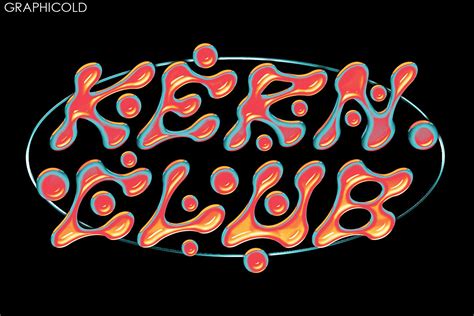
Hey everyone! Today, we’re diving deep into the fascinating world of alien fonts . You know, those super cool, otherworldly, and often downright bizarre typefaces that make you feel like you’ve just landed on a different planet? If you’re looking to add a touch of the extraterrestrial to your designs, you’ve come to the right place. We’ll be exploring what makes a font feel ‘alien’, where you can find some awesome examples, and how you can use them to make your projects truly stand out. Get ready to blast off into a universe of unique typography!
What Makes a Font Feel “Alien”?
So, what exactly gives a font that out-of-this-world vibe, guys? It’s all about breaking away from the norm, right? Alien fonts typically steer clear of the standard sans-serif and serif structures we see every day. Instead, they often feature unconventional shapes, sharp angles, and sometimes, a distinct lack of symmetry. Think about those classic sci-fi movie posters or the typography used in futuristic video games – they rarely use Times New Roman, do they? They’re more likely to sport fonts with jagged edges that look like they were carved by laser beams, or smooth, flowing lines that mimic the elegance of advanced alien technology. Some alien fonts might even incorporate elements that look like circuits, alien script, or abstract geometric patterns. The key is that they evoke a sense of the unknown, the strange, and the technologically advanced, or perhaps even primitive and bizarre. They challenge our perceptions of what letters should look like and invite us to imagine different possibilities for communication. It’s like looking at hieroglyphics from another galaxy – familiar enough to be recognized as text, but different enough to be mysterious and intriguing. The color palette also plays a role, with metallic sheens, neon glows, and deep space blacks often associated with alien aesthetics. But fundamentally, it’s the form of the characters themselves that screams ‘alien’. Whether it’s the way the ‘A’ has three legs instead of two, or the ‘O’ is more of a hexagon, these subtle (or not so subtle!) deviations from the familiar are what create that immediate extraterrestrial impression. We’re talking fonts that look like they could be alien hieroglyphs, or perhaps the digital readouts from a UFO’s control panel. The goal is to spark curiosity and a sense of wonder, making viewers pause and think, “What is that?” It’s a creative playground for designers to push boundaries and explore new visual languages, moving beyond Earthly conventions to embrace the truly alien.
Where to Find Awesome Alien Fonts
Alright, so you’re hyped to find some of these cosmic fonts, but where do you start looking? Don’t worry, the digital universe is packed with them! One of the best places to start your search is on popular font repositories like Google Fonts , Dafont , Font Squirrel , and Creative Market . While Google Fonts might have a more curated selection, Dafont is a goldmine for freebies, and you’ll definitely find some wild, experimental stuff there if you dig a little. Creative Market, on the other hand, often features premium alien fonts designed by professionals, offering higher quality and unique stylistic elements. When searching, try keywords like ‘sci-fi font’, ‘futuristic font’, ‘space font’, ‘tech font’, or even ‘glitch font’ – these often lead you down the right rabbit hole. You might also find some gems by browsing through categories like ‘Abstract’, ‘Distorted’, or ‘Experimental’ on these sites. Sometimes, the best alien fonts are those that aren’t explicitly labeled as ‘alien’ but possess characteristics that lend themselves to that aesthetic. Think about fonts inspired by circuit boards, alien languages, or even abstract art. Many independent font designers also release their creations on platforms like Behance or even their own websites, so keep an eye out there too. Remember to always check the licensing information, especially for free fonts, to make sure you can use them for your intended purpose, whether it’s a personal project or a commercial venture. The sheer variety is incredible, from sleek and minimalist designs that suggest advanced alien civilizations to more rugged and mysterious fonts that hint at ancient, unknown beings. So, grab your digital spaceship and start exploring – your perfect alien font is out there waiting to be discovered, ready to bring a touch of the cosmos to your next design!
Using Alien Fonts in Your Designs
Now for the fun part, guys: actually using these alien fonts! The key here is balance and intent . An alien font isn’t something you’d typically use for the body text of a novel (unless it’s a very specific kind of novel, wink wink). They shine brightest as display fonts, meaning they’re perfect for headlines, titles, logos, posters, and any situation where you want to make a bold, immediate impact. Imagine a movie poster for an intergalactic adventure – an alien font for the title is almost a necessity! Or perhaps a logo for a tech startup that wants to convey innovation and cutting-edge technology. For a more subtle effect, you could use a slightly more abstract alien font for accents or short bursts of text within a larger design. For example, if you’re designing a website for a space-themed event or a video game, a cool alien font can be used for section titles or call-to-action buttons to add thematic flair without overwhelming the user. Another great application is in branding for fictional companies or products within a sci-fi context. Think about designing merchandise for a popular space opera – custom alien fonts would be a designer’s dream! When pairing alien fonts with more conventional ones, try to keep it simple. Let the alien font be the star of the show. A clean, simple sans-serif or serif font for your main content will help the alien font pop and ensure readability. Avoid overcrowding your design; let the typography breathe. Consider the overall mood you want to create. Is it mysterious and eerie? Sleek and futuristic? Or perhaps quirky and retro-futuristic? The choice of alien font will heavily influence this. Don’t be afraid to experiment! Try different alien fonts on different elements. Play with colors – metallic gradients, glowing effects, or stark contrasts can really enhance the alien feel. Remember, the goal is to enhance your message and theme, not to make your design illegible. So, use them wisely, and your designs will truly reach for the stars!
Types of Alien Fonts to Explore
When we talk about alien fonts , it’s not just one monolithic style, you know? There’s a whole universe of variations out there, each with its own unique cosmic flavor. Let’s break down some of the cool categories you’ll encounter. First up, we have the Futuristic & Tech Fonts . These guys often feature clean lines, sharp edges, sharp angles, and sometimes incorporate elements that look like digital readouts, circuitry, or holographic displays. Think sleek spaceships and advanced AI. They convey a sense of progress, innovation, and sometimes a bit of cold, mechanical efficiency. They’re perfect for designs that aim for a modern, high-tech aesthetic. Then there are the Abstract & Experimental Fonts . These are the wild cards, the ones that really push the boundaries of typography. They might feature irregular shapes, distorted letterforms, or completely unique constructions that don’t resemble traditional alphabets at all. They evoke a sense of mystery, the truly unknown, and can be incredibly striking for artistic or avant-garde projects. You might see them used for alien scripts in movies or for designs that want to feel truly bizarre and unconventional. Next, consider Organic & Mysterious Fonts . These fonts move away from sharp, mechanical lines and lean towards more fluid, sometimes unsettling shapes. They might look like alien flora, bizarre biological forms, or ancient, indecipherable runes. They can create an atmosphere of ancient secrets, alien biology, or even a slightly eerie, naturalistic alien world. They’re great for adding a touch of the weird and wonderful. We also have Glitch & Distorted Fonts . These fonts simulate digital errors, static, or warped transmissions, giving a sense of corrupted data or a communication breakdown from another dimension. They add a dynamic, edgy feel and are fantastic for projects that involve themes of technology gone wrong, virtual realities, or interdimensional travel. Finally, don’t forget the Retro-Futuristic Fonts . These often take inspiration from older sci-fi aesthetics, like the pulp magazines of the mid-20th century. They might have a certain B-movie charm, with bold shapes and a distinct, almost naive vision of the future. They’re fun, nostalgic, and can add a unique personality to your designs. Exploring these different categories will help you pinpoint the exact alien vibe you’re going for, whether it’s the sleekness of a technologically superior race or the eerie mystery of an undiscovered planet.
Tips for Choosing the Right Alien Font
Picking the perfect alien font can feel like navigating an asteroid field, but with a few pointers, you’ll be charting a course to success in no time! First and foremost, consider the context . What is the overall theme and message of your design, guys? Are you going for sleek and futuristic, mysterious and eerie, or maybe quirky and retro? An alien font that looks like a digital readout might be perfect for a tech conference flyer, but terrible for a fantasy novel cover. Always think about the feeling you want to evoke. Secondly, prioritize readability , even with alien fonts. While some experimental fonts are purely artistic, most need to be legible to some degree, especially if they’re used for headlines or important text. Look for fonts that strike a balance between unique alien characteristics and clear letterforms. If people can’t read your headline, your awesome alien design falls flat! Test it out! Don’t just download a font and assume it’s the right fit. Type out your headline or key phrases and see how it looks in the context of your design. Does it clash with other elements? Is it too busy? Does it actually look good ? Sometimes, a font looks great in the preview but falls apart when used in a real project. Consider the overall aesthetic . Does the font complement the colors, imagery, and layout you’re using? A very complex, angular alien font might not work well with soft, flowing illustrations, for example. Aim for harmony, even when using something as unconventional as an alien font. Check the character set and language support . Some highly stylized alien fonts might only include basic Latin characters. If you need to include special symbols, numbers, or characters from other alphabets, make sure the font supports them. Lastly, don’t overdo it . As we mentioned, alien fonts are usually best used as accent pieces or for major headlines. Using them everywhere can quickly become overwhelming and unprofessional. A little goes a long way in making a powerful, alien-inspired statement. By keeping these tips in mind, you’ll be well-equipped to select an alien font that elevates your design from terrestrial to totally stellar!
Conclusion: Embrace the Cosmic Typography
So there you have it, folks! We’ve journeyed through the vast expanse of alien fonts , exploring what makes them so unique, where to find them, and how to wield them effectively in your creative endeavors. Whether you’re designing a poster for a sci-fi convention, a logo for a futuristic brand, or just want to add a splash of otherworldly charm to your personal projects, alien fonts offer an incredible avenue for creative expression. Remember, these aren’t just letters; they’re portals to imagination, tools that can transport your audience to distant galaxies and unknown dimensions. Don’t be afraid to experiment with different styles, from the sleek and technological to the bizarre and organic. The key is to use them with intention, ensuring they complement your overall design and enhance your message. So go forth, explore the cosmic libraries of fonts, and find those perfect alien typefaces that will make your designs truly unforgettable. Embrace the weird, the wonderful, and the utterly alien. Your next masterpiece awaits among the stars! Keep creating, and may your designs be ever so… extraterrestrial!